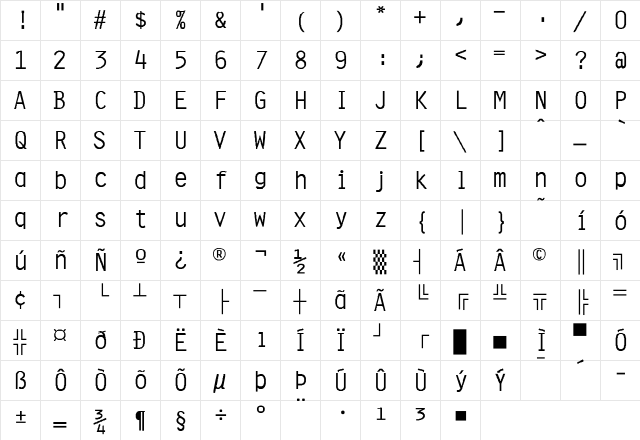
Bates Normal Regular
Design Context for Bates Normal
Bates Normal is a composed and adaptable typeface that performs quietly and consistently across a wide range of design contexts.